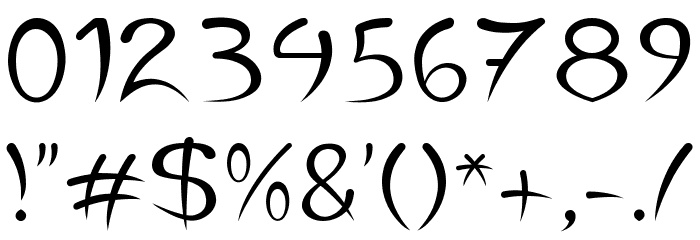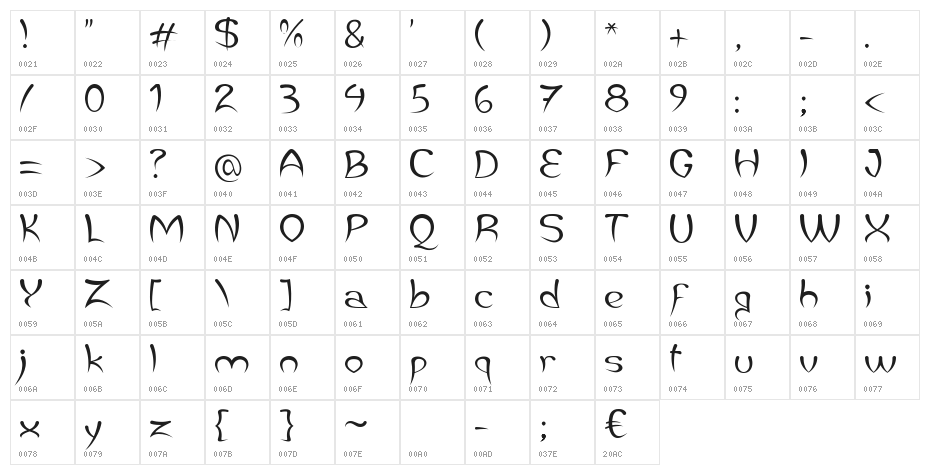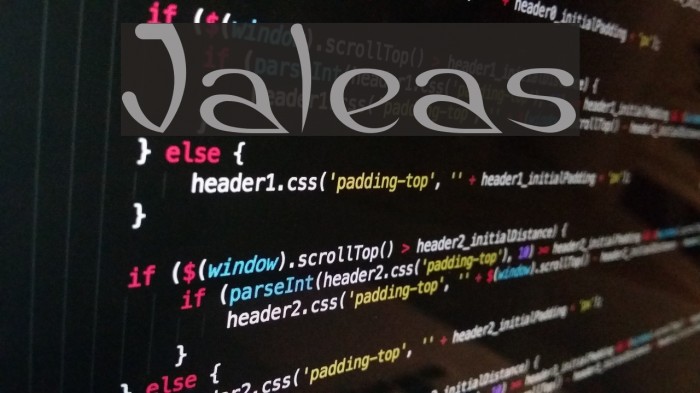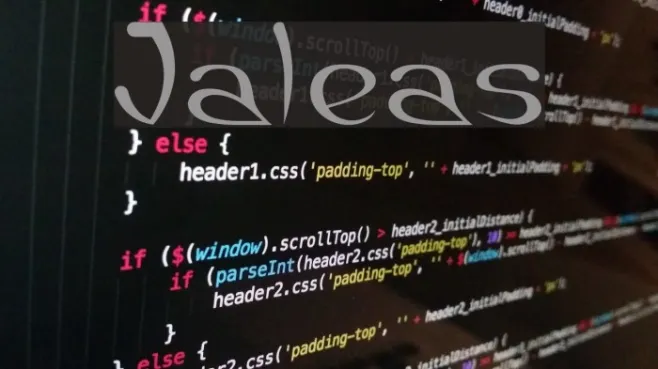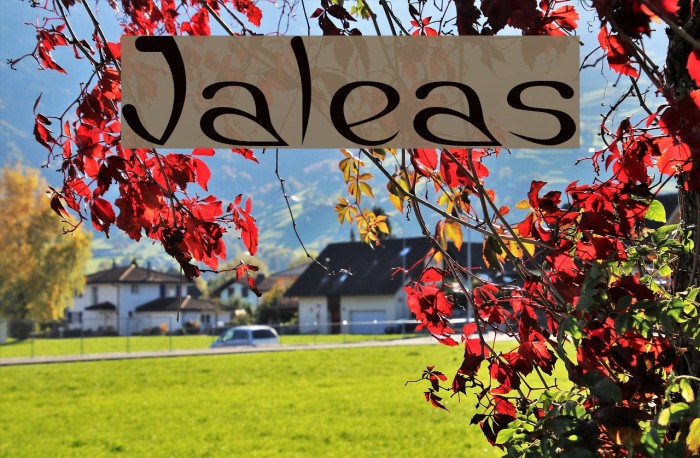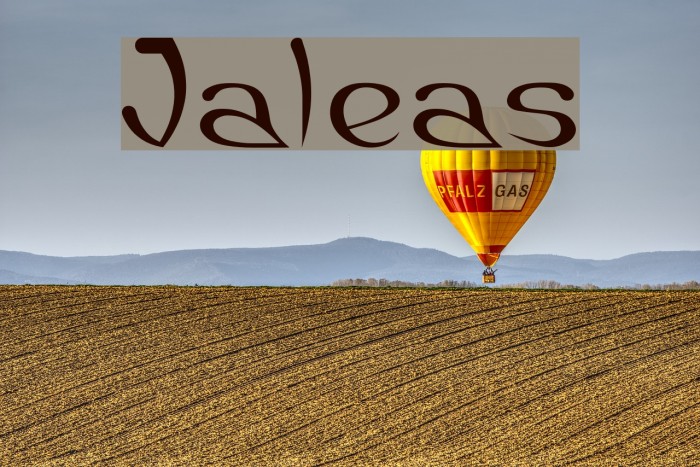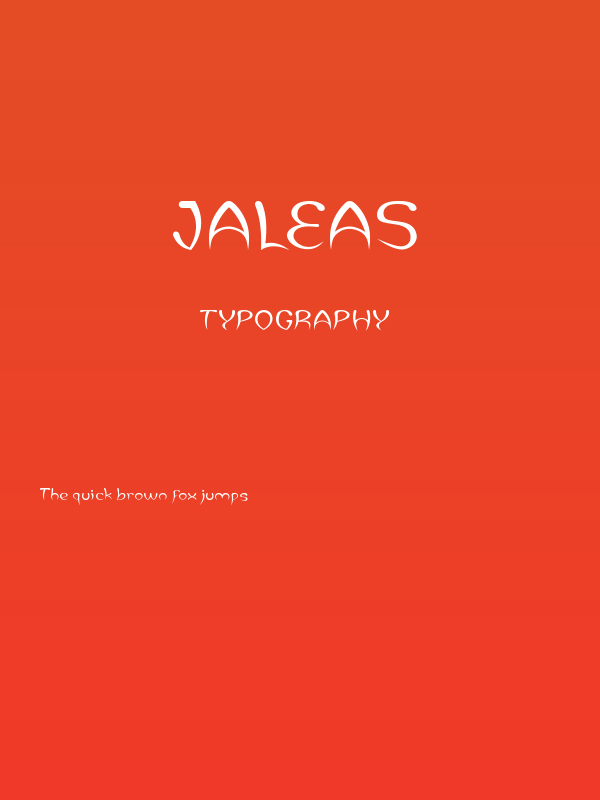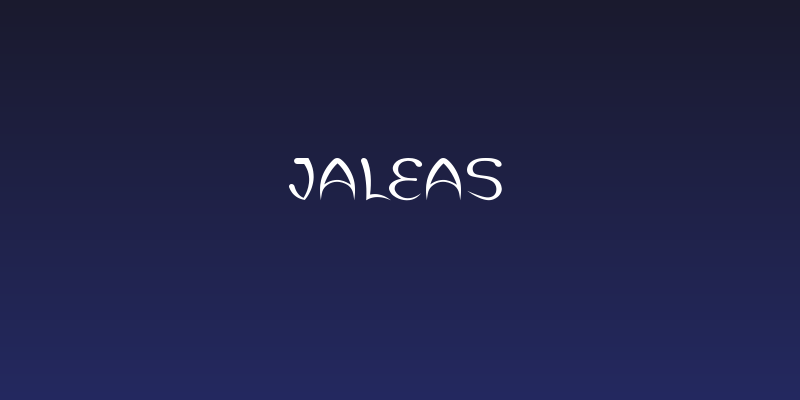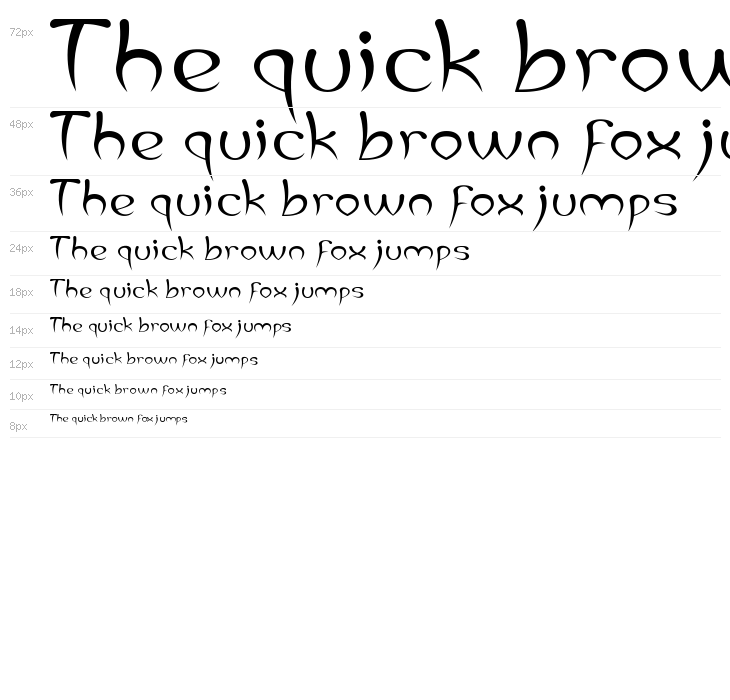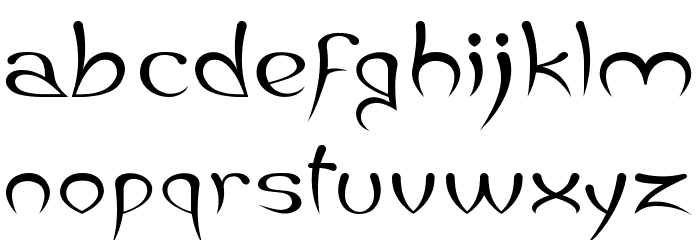
Jaleas Font
Jaleas Description
This font features a unique and artistic style with a distinct flair in each character. The letters have a flowing, almost calligraphic quality, with sharp, pointed serifs and curves that give it a dynamic and energetic appearance. The uppercase and lowercase letters maintain a consistent style, while the numbers and special characters complement the overall design. The font's playful yet sophisticated look makes it suitable for creative projects that require a touch of elegance and individuality.
| Proposed Projects | Ideal for branding, invitations, artistic posters, and creative logos. |